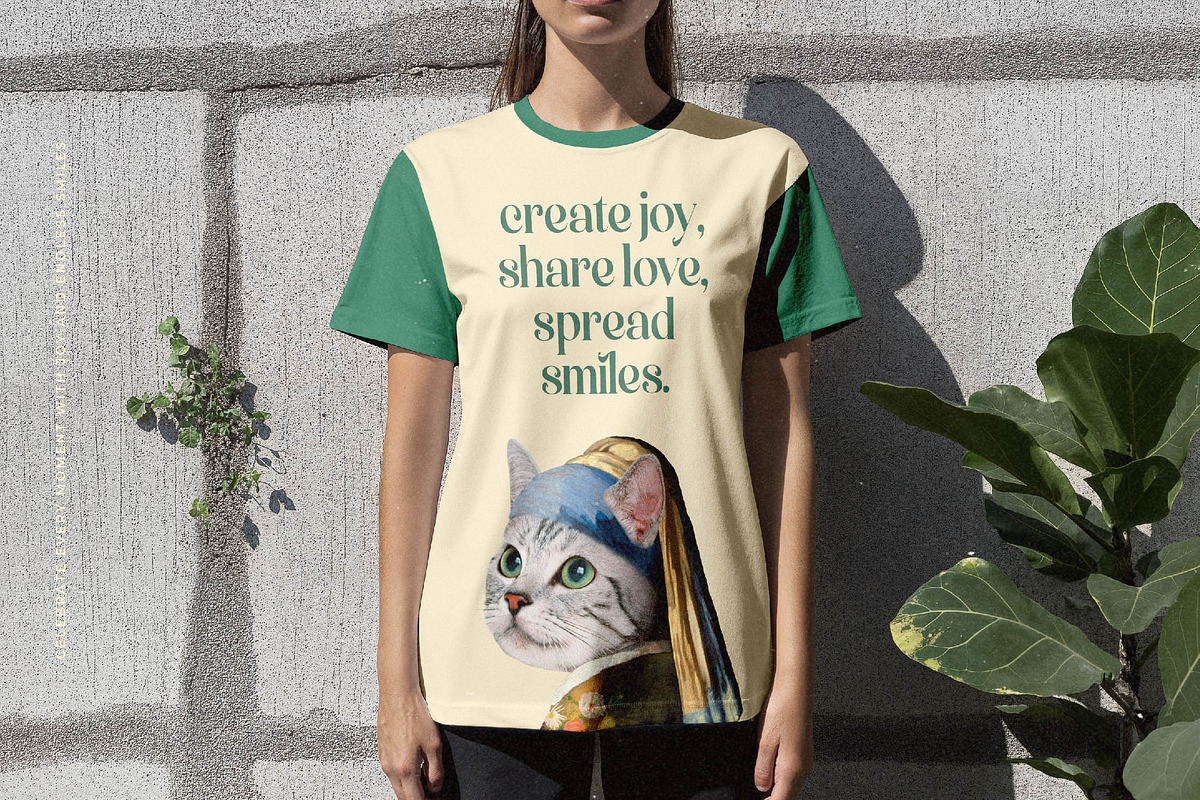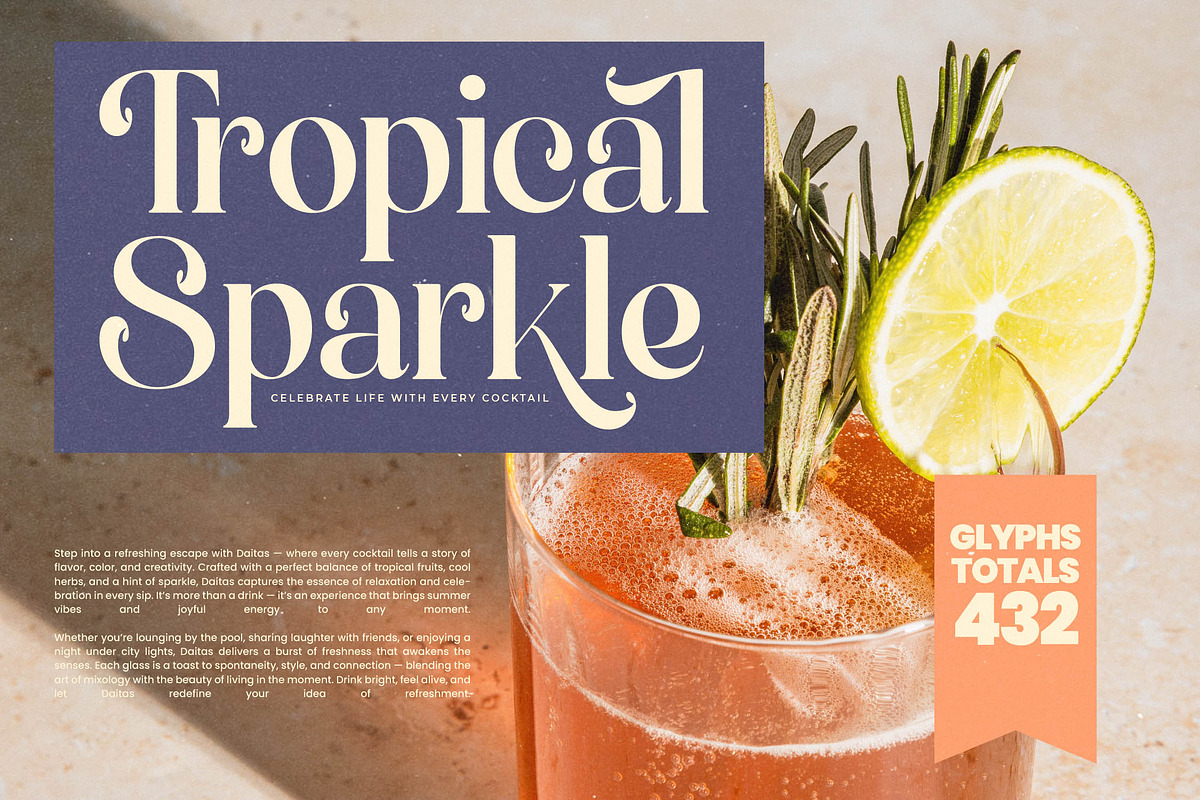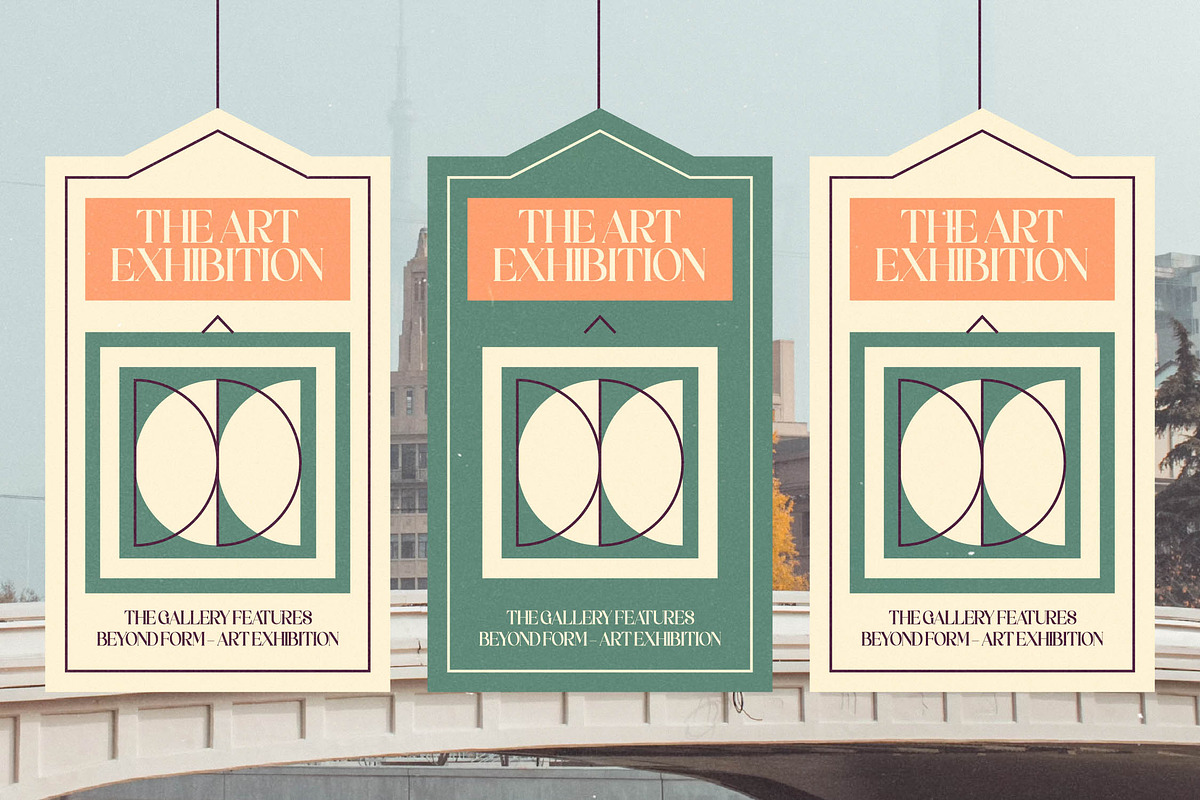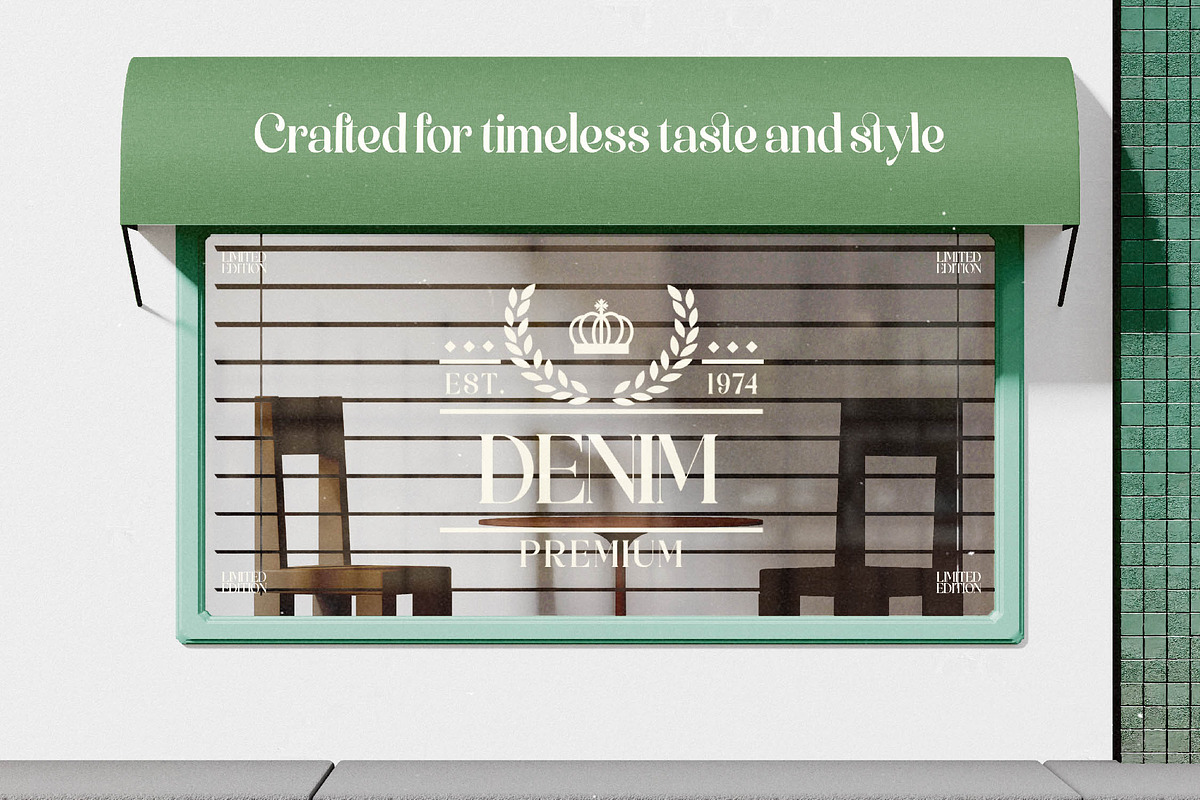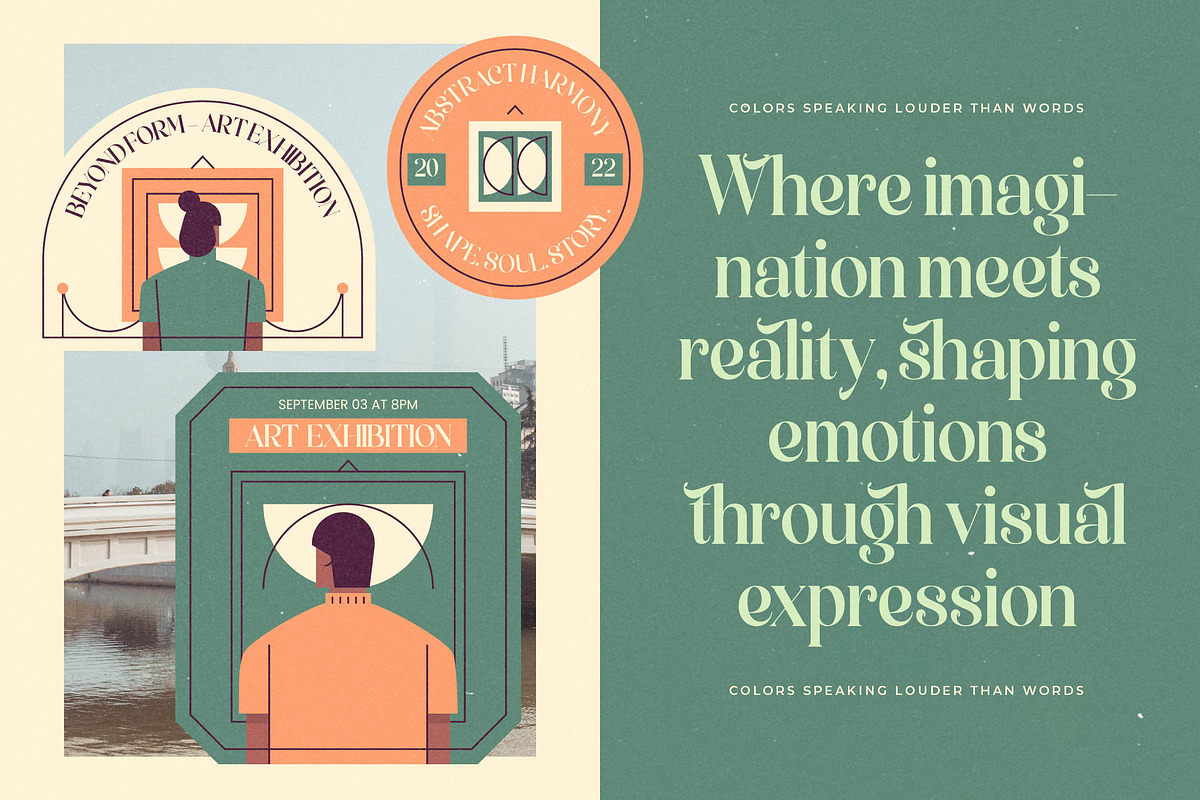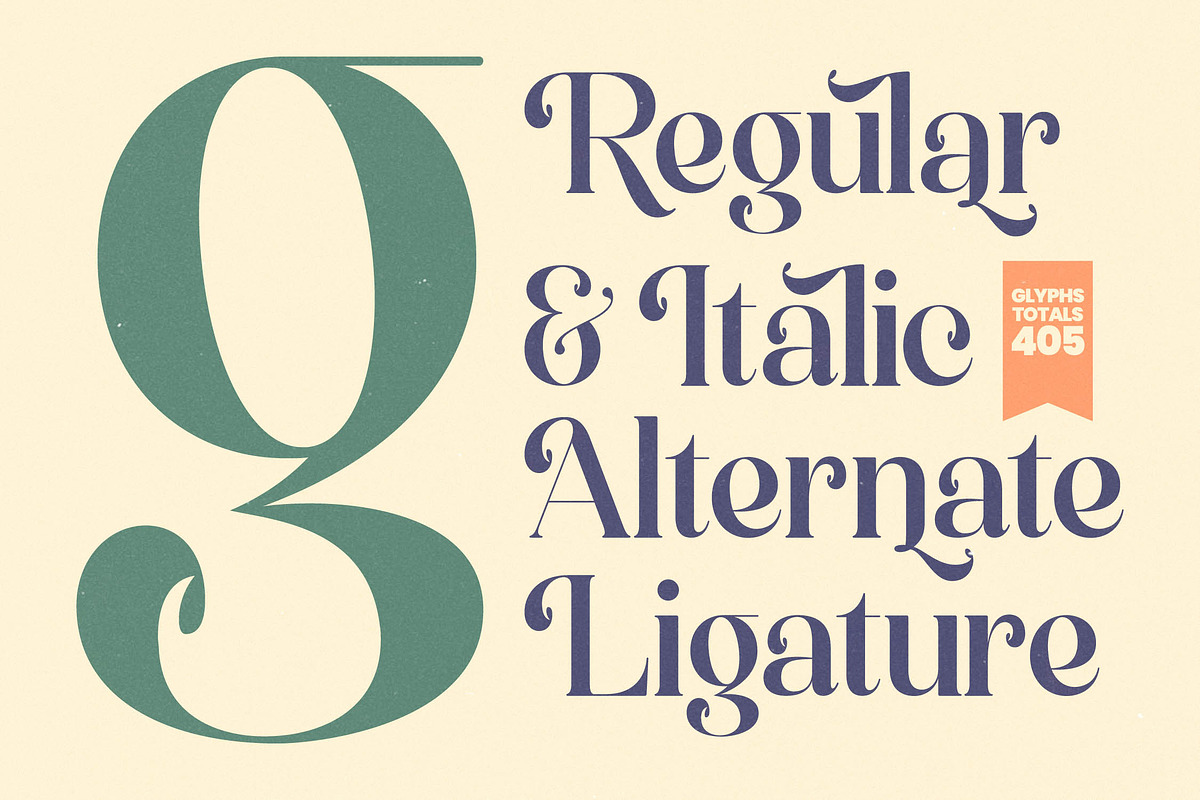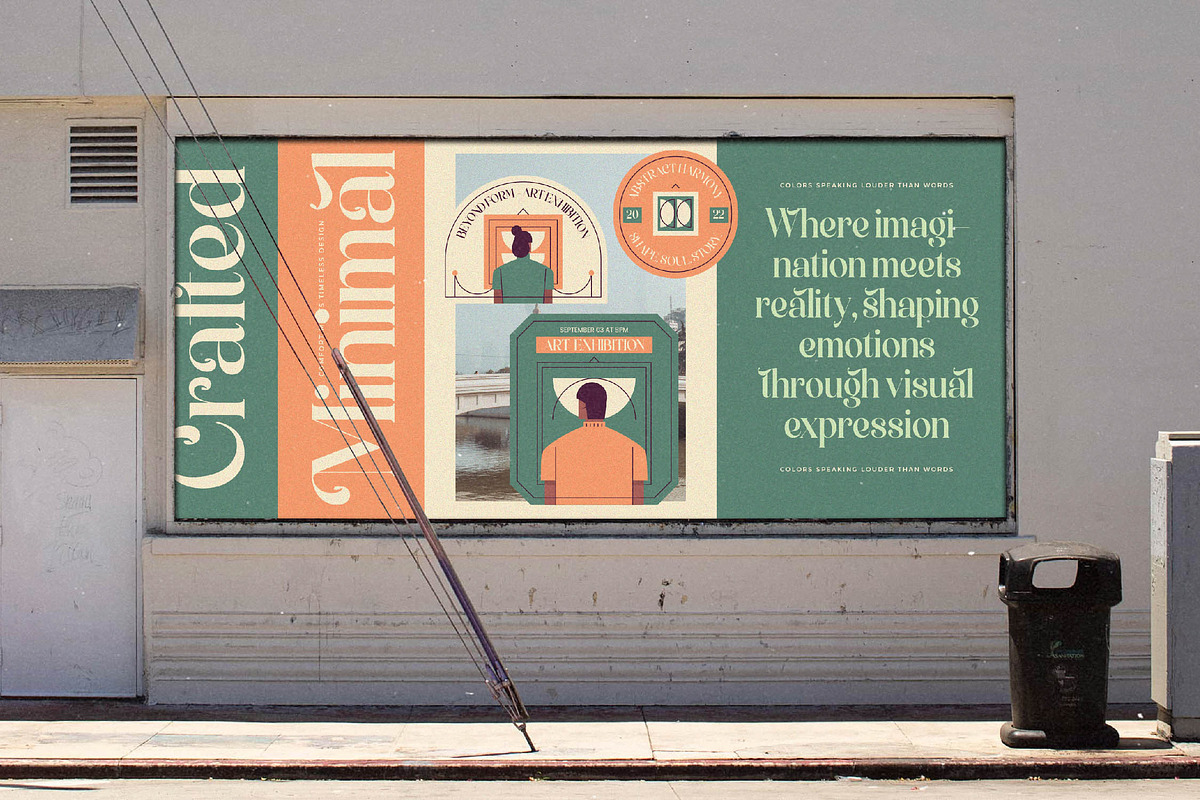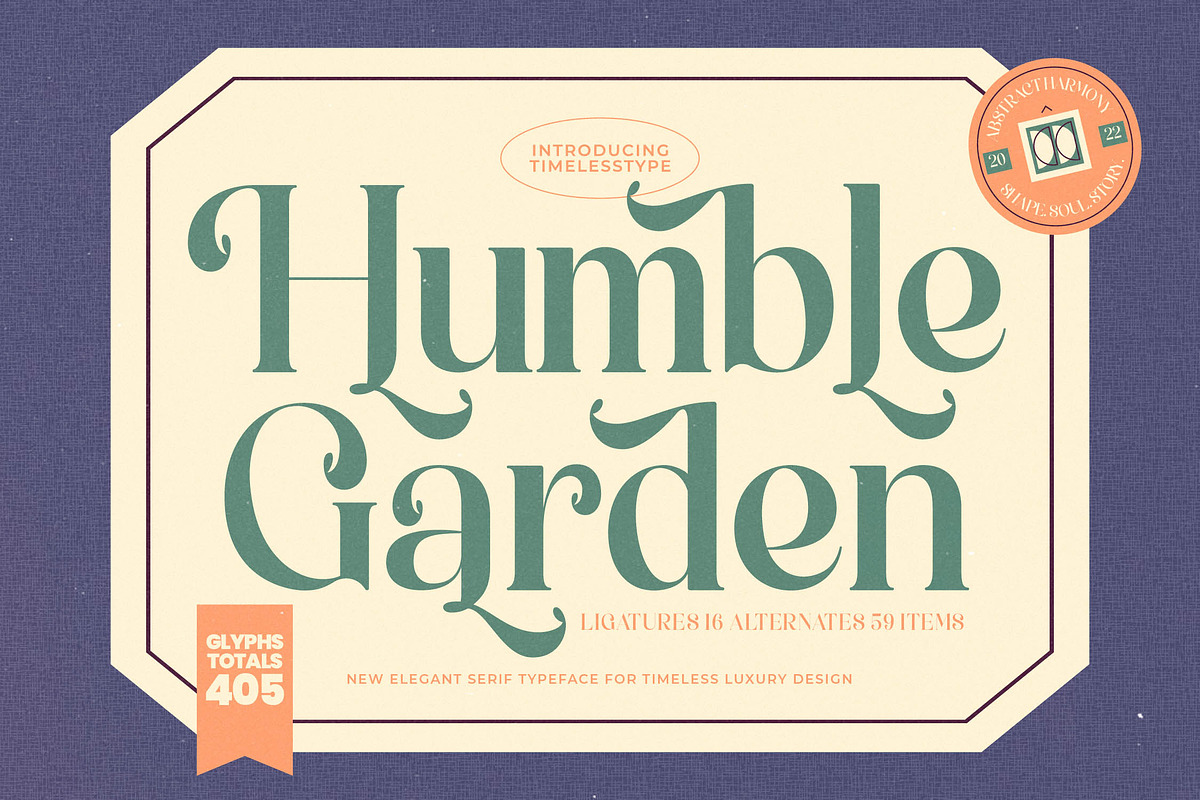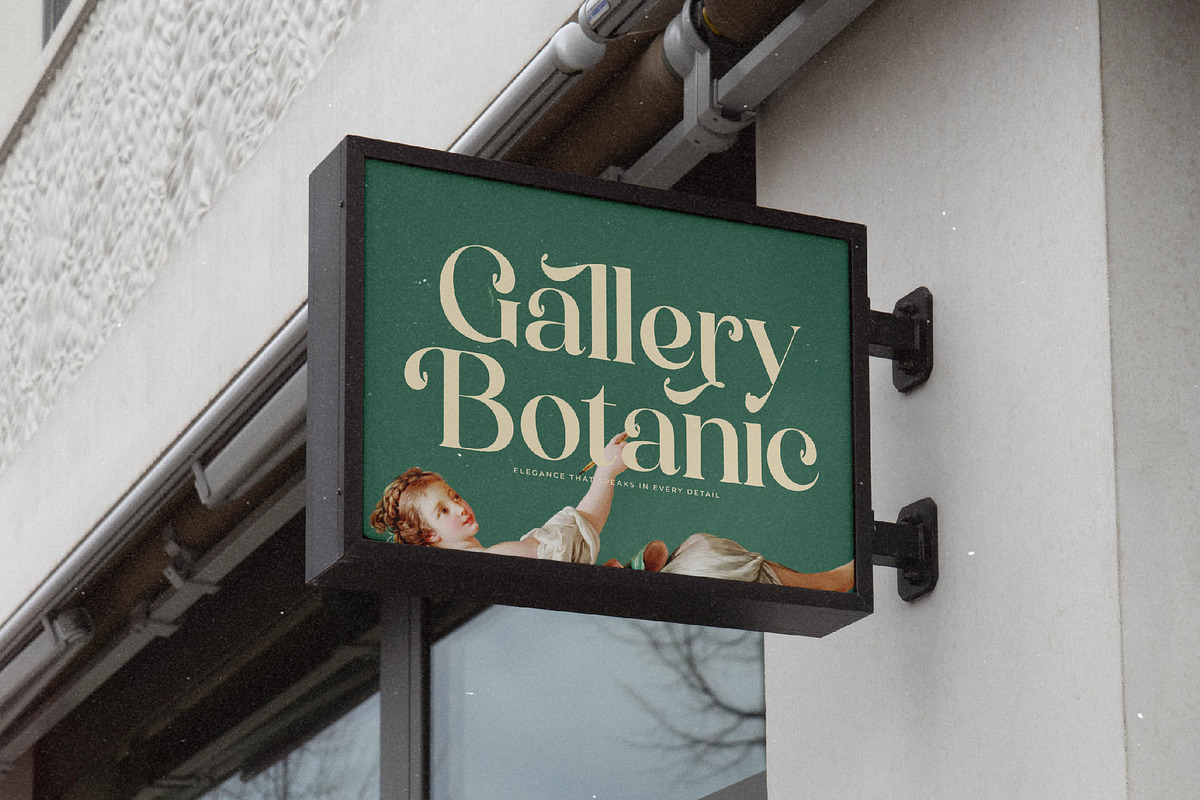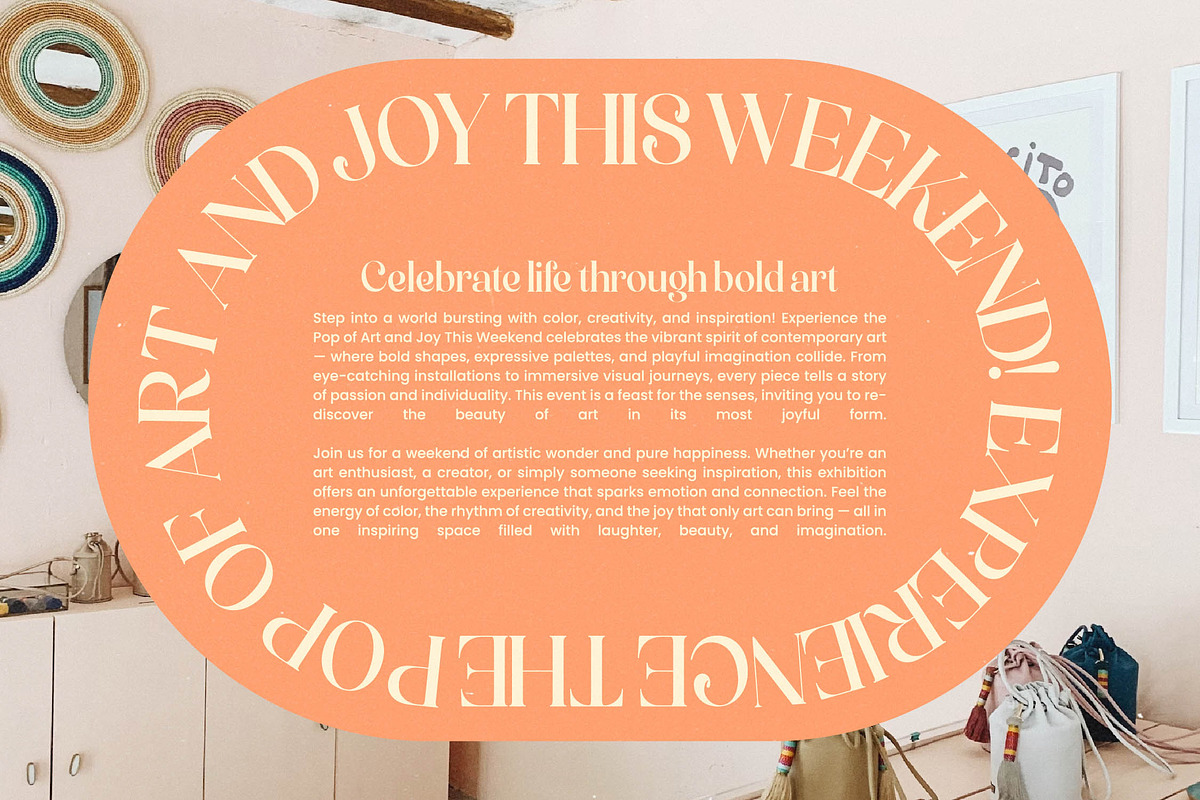
Humble Garden Elegant Luxury Serif
Humble Garden is a masterclass in refined aesthetics, designed to infuse your creative projects with a sense of timeless sophistication and grace. This typeface strikes a perfect balance between organic curves and sharp, authoritative structures to create a visual experience that is truly unforgettable.
Drawing inspiration from the serene beauty of high-end botanical gardens and the legacy of classic mid-century editorial design, the atmosphere of this font is one of quiet luxury. Its distinctive terminals and flowing lines suggest a rich history while remaining firmly rooted in contemporary high-fashion sensibilities.
This modern serif display is the ultimate choice for creators seeking luxury typography that commands attention without sacrificing its understated elegance. With its high-contrast serif strokes and meticulously refined finish, it serves as a powerful editorial font that guarantees a lasting branding impact across both digital platforms and physical media.
Aligning perfectly with the current modern serif trend, this typeface elevates itself above standard editorial display fonts through its unique rhythmic flow and personality. Its character-driven typography allows it to adapt seamlessly to various design styles, from minimalist luxury to ornate maximalism, making it a versatile cornerstone for any professional toolkit.
It is a premier choice for high-end logo design, premium branding, and upscale editorial layouts where visual storytelling is paramount. The graceful presence of this typeface makes it the ideal partner for luxury packaging, romantic wedding suites, and avant-garde fashion publications that require a touch of class.
Beyond its beauty, the font is technically robust, featuring 16 unique ligatures and 59 expressive alternates for custom-tailored text compositions. It also includes elegant swashes and offers comprehensive multilingual support with over 400 international characters to ensure your message reaches a global audience with style.